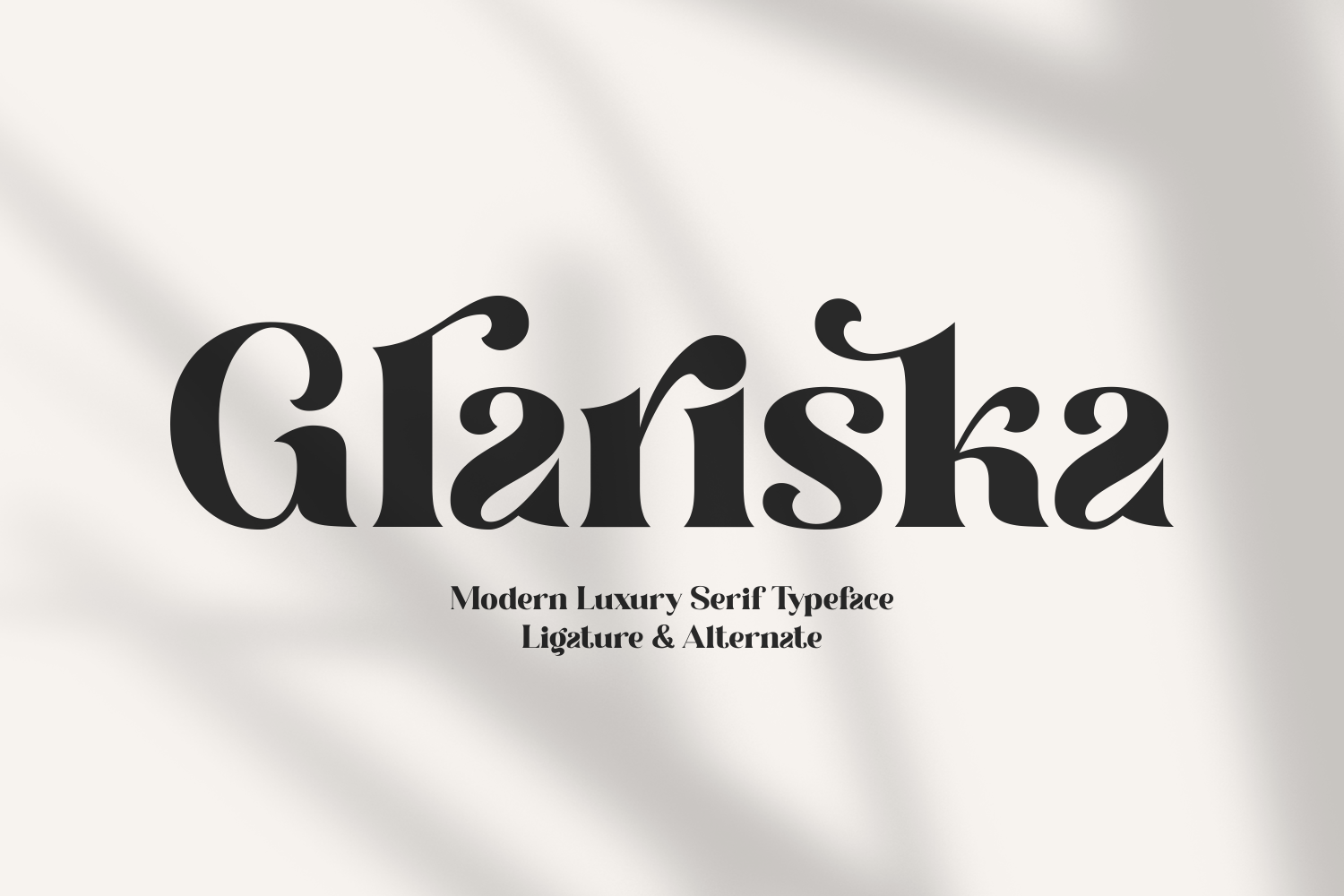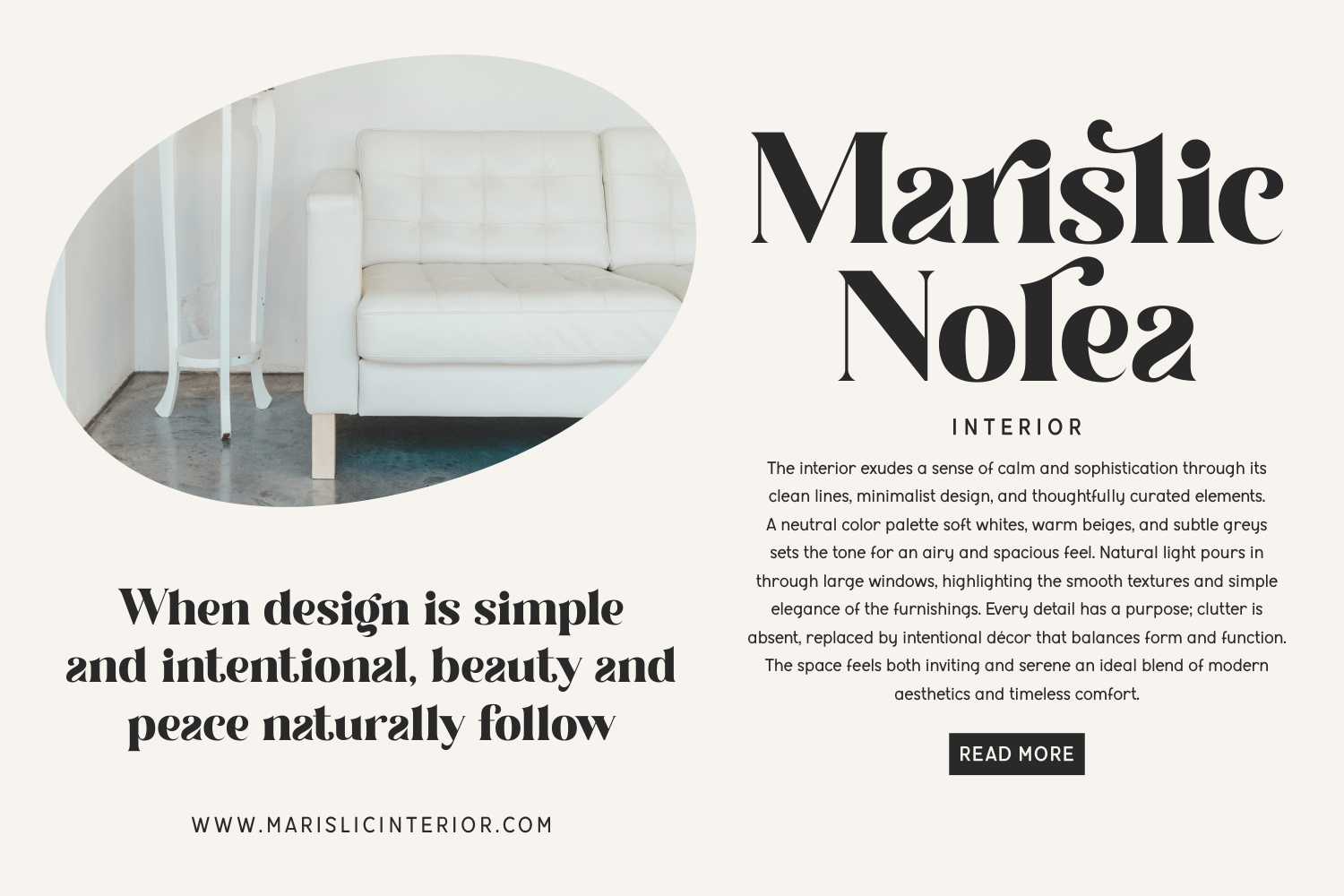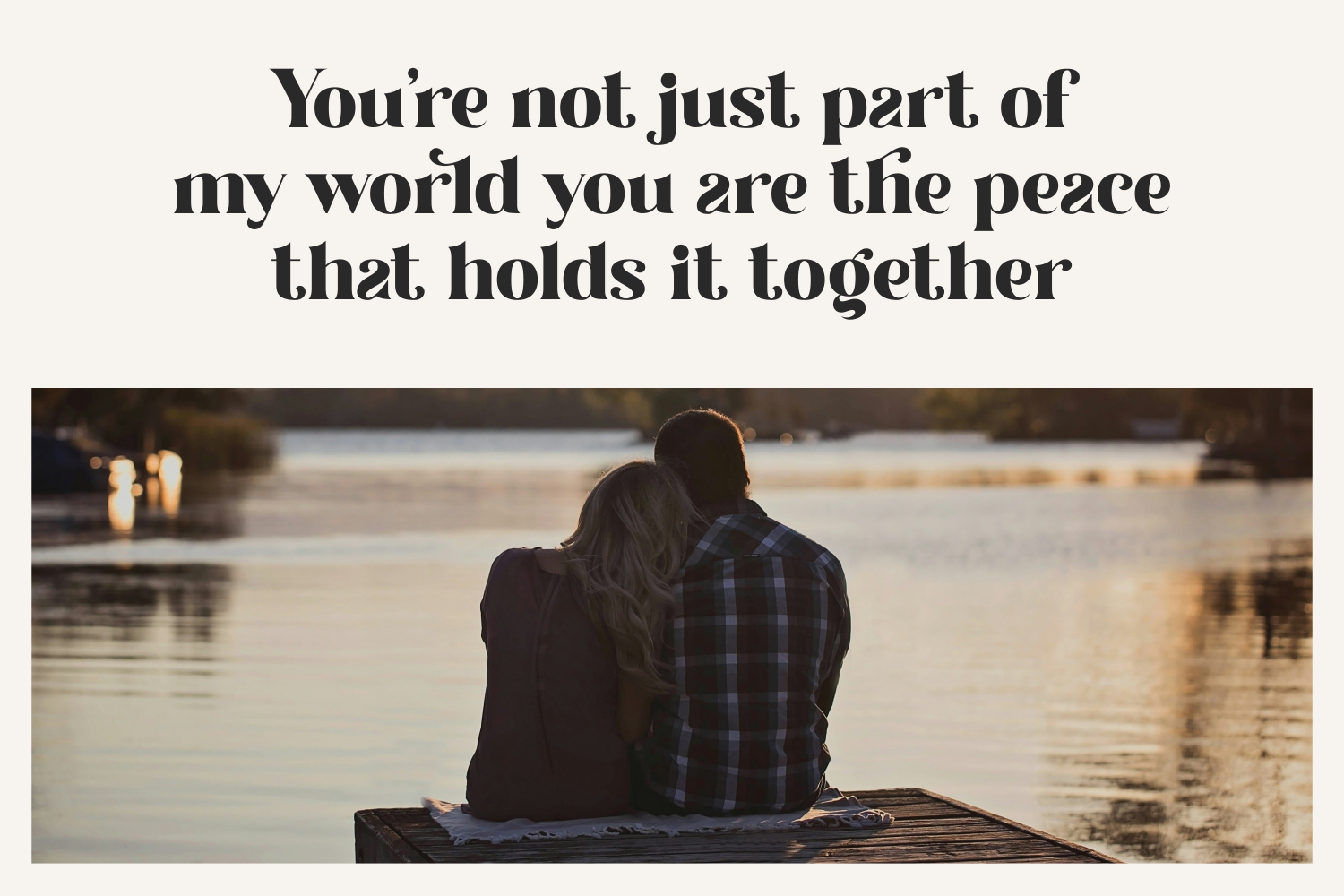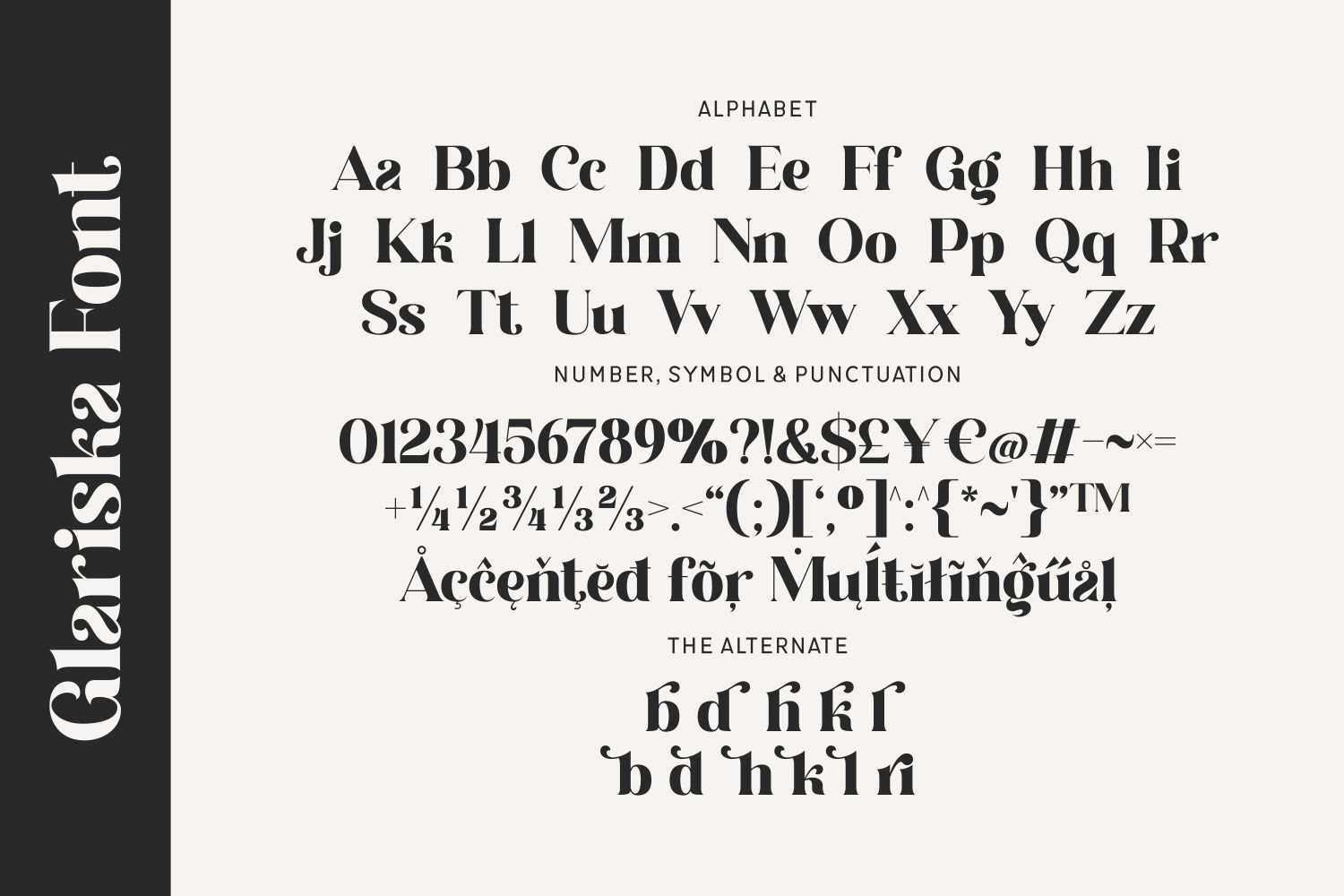
Glariska is a bold and charismatic modern serif font with luxurious curves and striking alternates. Glariska’s unique personality is both chic and playful—commanding attention while maintaining refined sophistication. Complete with multilingual support and stylish alternates, this typeface brings character and class to every layout.